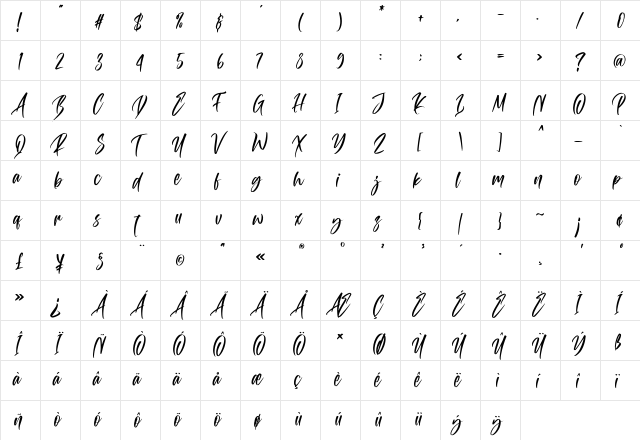
Attomi Gilbert Regular
| Foundry | Motokiwo |
| Designer | Anton Cahyono |
Design Context for Attomi Gilbert Typeface
Attomi Gilbert is a composed and adaptable typeface that performs quietly and consistently across a wide range of design contexts.